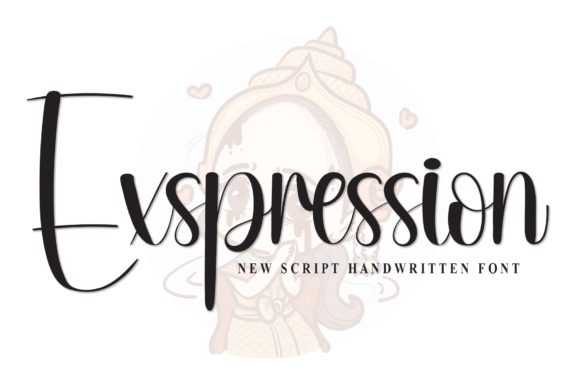
Unleash the enchantment in your digital creations with "Exspression Font" - a masterful symphony of handwritten artistry. This exquisite script font embodies the essence of warmth and playfulness, captivating hearts with its irresistibly sweet and friendly demeanor.
Immerse yourself in a world where every letter dances with grace, leaving an indelible mark on your designs that whisper tales of joy and charm. From wedding invitations that exude a heartfelt elegance to greeting cards adorned with playful whimsy, "Exspression Font" transforms the ordinary into the extraordinary, leaving a lasting impression that lingers in the memory.
Crafted by the visionary William Jhody, this font is a labor of love, meticulously designed to evoke the beauty of the written word. With its effortless flow and captivating curves, "Exspression Font" adds a touch of magic to any project, making it a must-have for designers seeking to infuse their work with a touch of personality and charm.
Whether you're a seasoned graphic artist or just starting your creative journey, "Exspression Font" will elevate your designs to new heights, adding a unique and captivating touch that sets your work apart. Experience the sheer joy of creating designs that resonate with your audience, leaving a lasting impression that will leave them enchanted and eager for more.
So, let your imagination soar and embrace the beauty of "Exspression Font." Its sweet and friendly aura, coupled with its versatile charm, will elevate your designs to new heights, captivating hearts and leaving a legacy of creativity and joy. Don't miss this opportunity to add this treasure to your design arsenal and embark on a journey of endless creative possibilities.